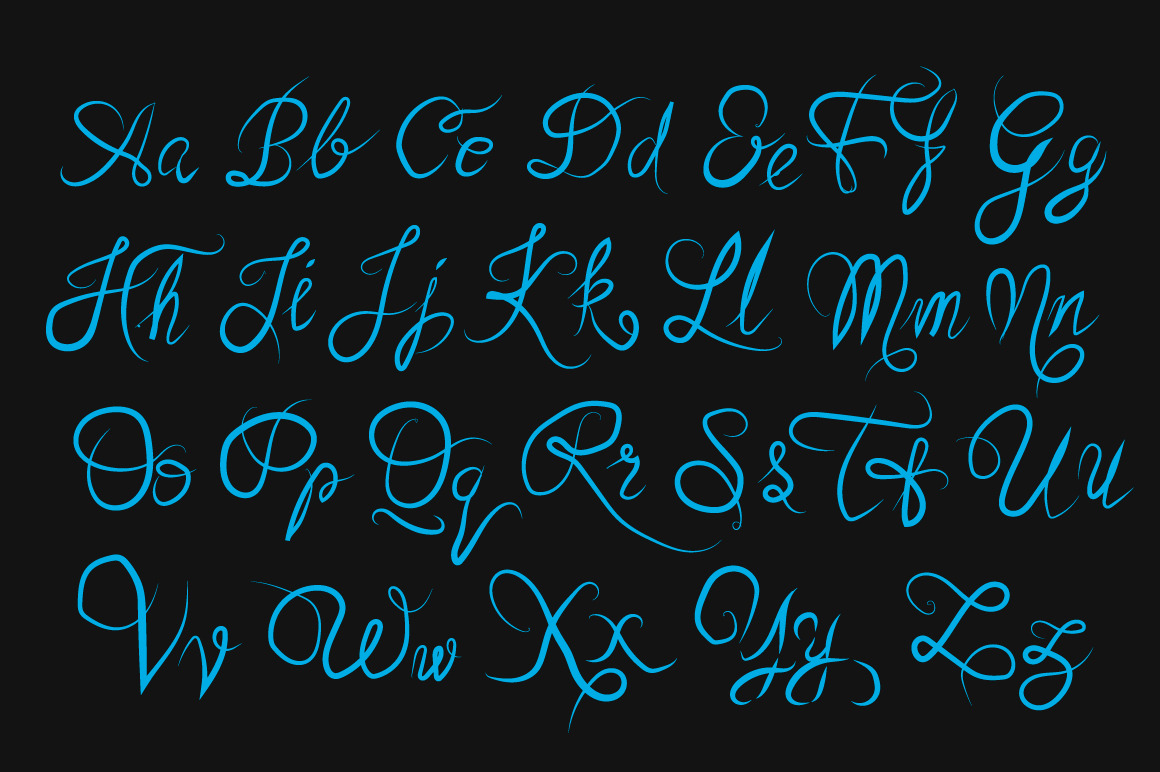
Handwritten quote calligraphy font
Handwritten quote calligraphy font - letters, blue on the blackboard background. it is easy to change color. vector illustration